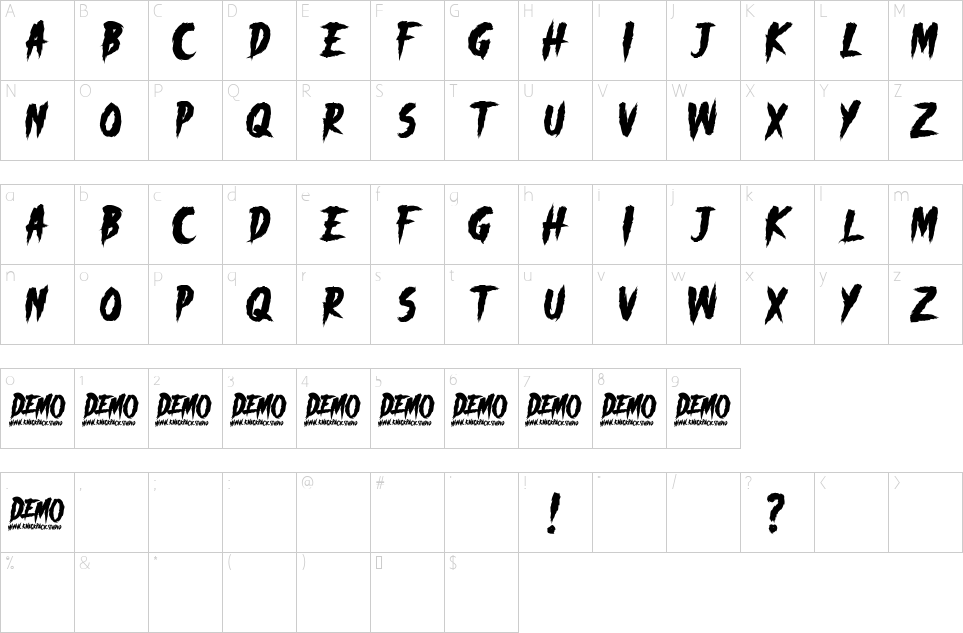
Chaos FontDesigners NoteCHAOS! Bold font made with Anger, Heavy Music and made specially for dark theme works. All-Capital. Available: Uppercase | Numbers | Punctuations 100% FREE for Personal. Donation is Highly appreciated. :) FULL / Commercial Version available at Website: http://www.knackpack.studio/fonts CM: https://creativemarket.com/knackpackstudio Subscribe to my Youtube Channel: https://bit.ly/33CYJVG E N J O Y Character MapFile Contents